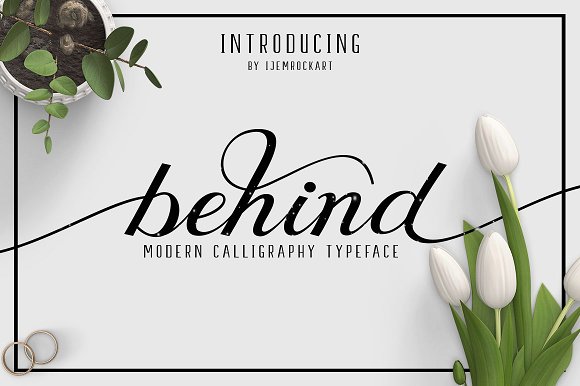
HomeScript FontsBehind Font Script Fonts Behind Font FacebookXPinterestWhatsApp About Behind Font Behind Script is a handmade calligraphy-style font. It features over 500 decorative characters. DOWNLOAD NOW People also explored Festany Font Cellicia Font Summer Font Moodbooster Font Sunshine Font Rosalinda Font Special One Font Dream Flourish Font Mountain Font 413 0 TagsBehind Font Previous articleJackson FontNext articleDraw Your Brand Handmade Font LEAVE A REPLY Cancel reply Comment: Please enter your comment! Name:* Please enter your name here Email:* You have entered an incorrect email address! Please enter your email address here Website: Save my name, email, and website in this browser for the next time I comment. Personal Use Free Droid Personal Use Free Read more about this font Choco Shake Font Personal Use Free Read more about this font Sushi Day Personal Use Free Read more about this font Geuli Personal Use Free Read more about this font BLOG 5 Fonts That Will Dominate Design Trends in 2026 5 Fonts for 2026 That Will Dominate Design Trends Typography plays a critical role in visual communication, and as we look ahead to 2026, it’s... Fonts That Capture the Spirit of New York City Free vs Paid Fonts: Why Investing in Premium Fonts Is Worth It How to Cut Any Font on Cricut: Convert a Font to SVG (Free)